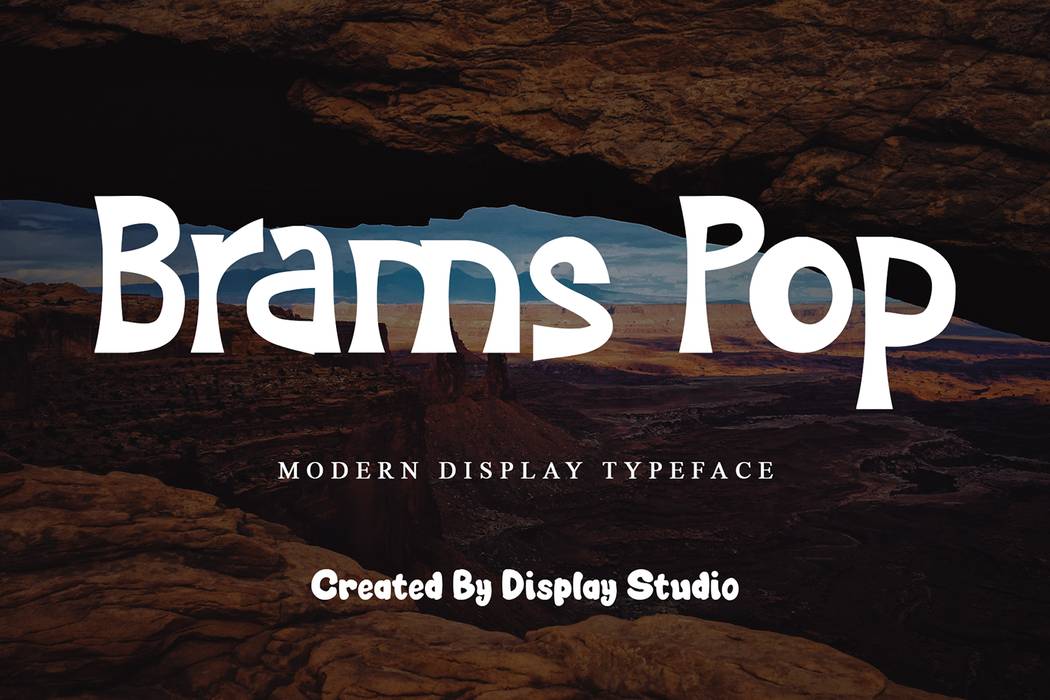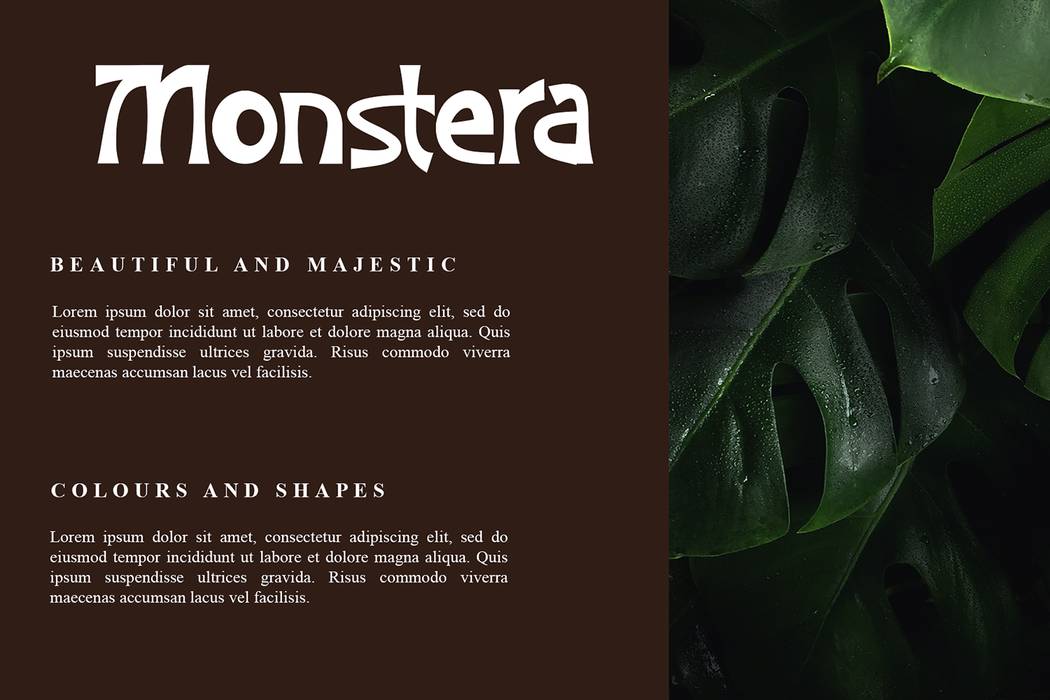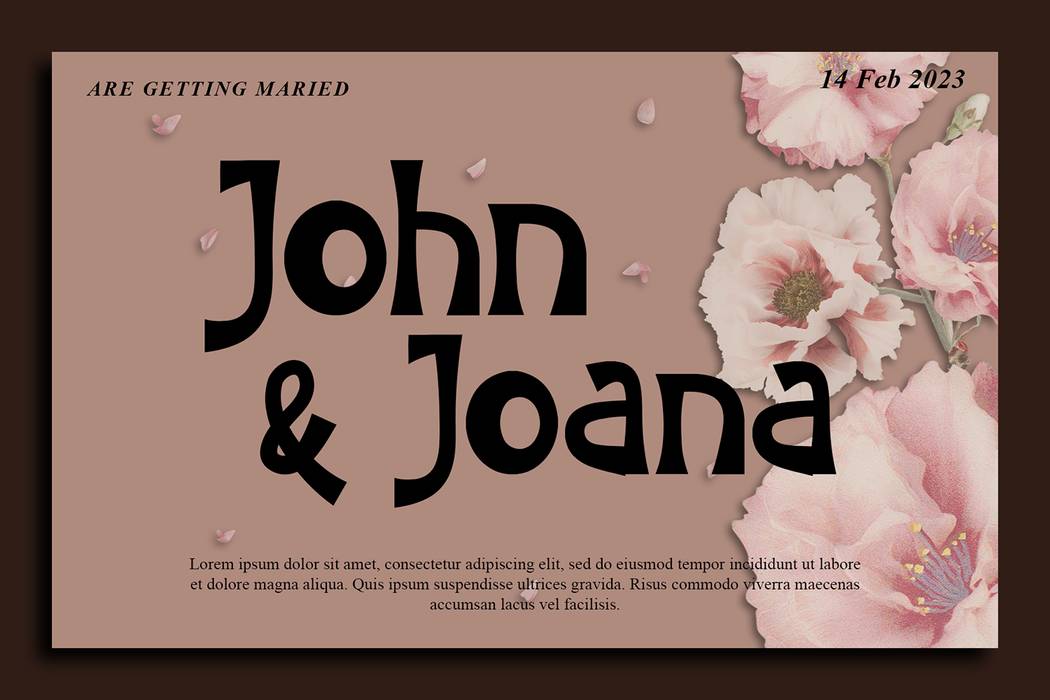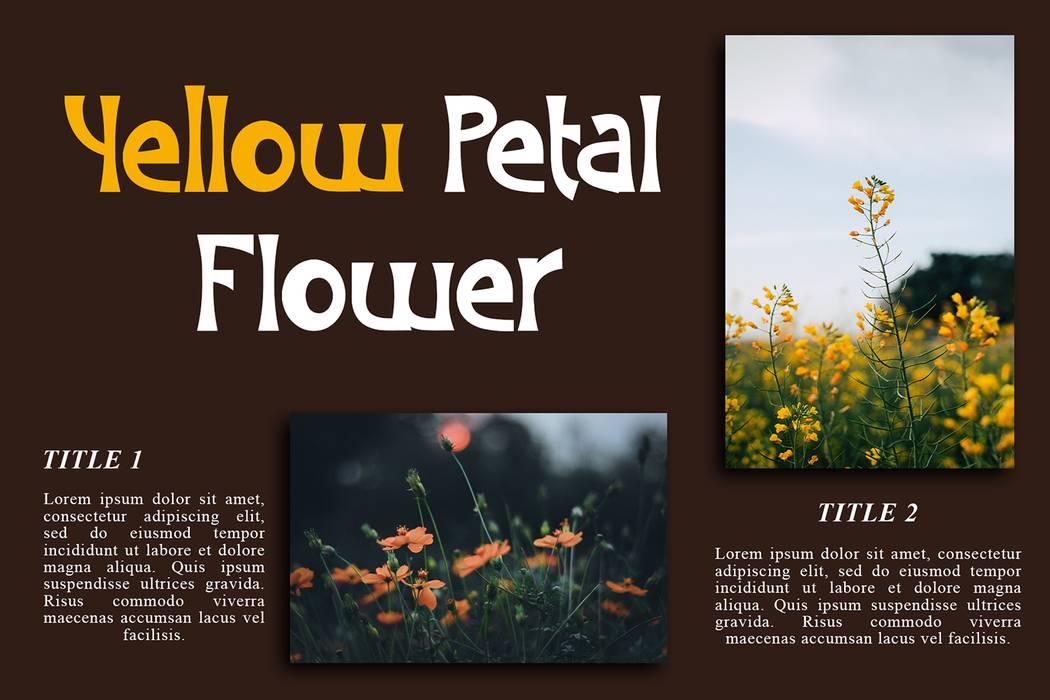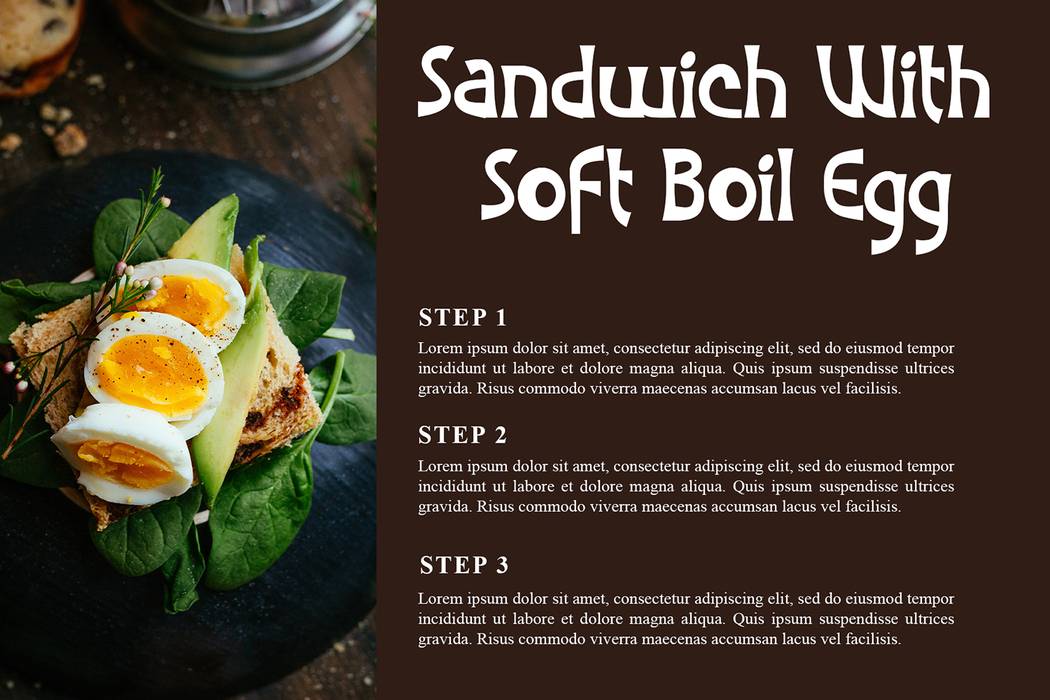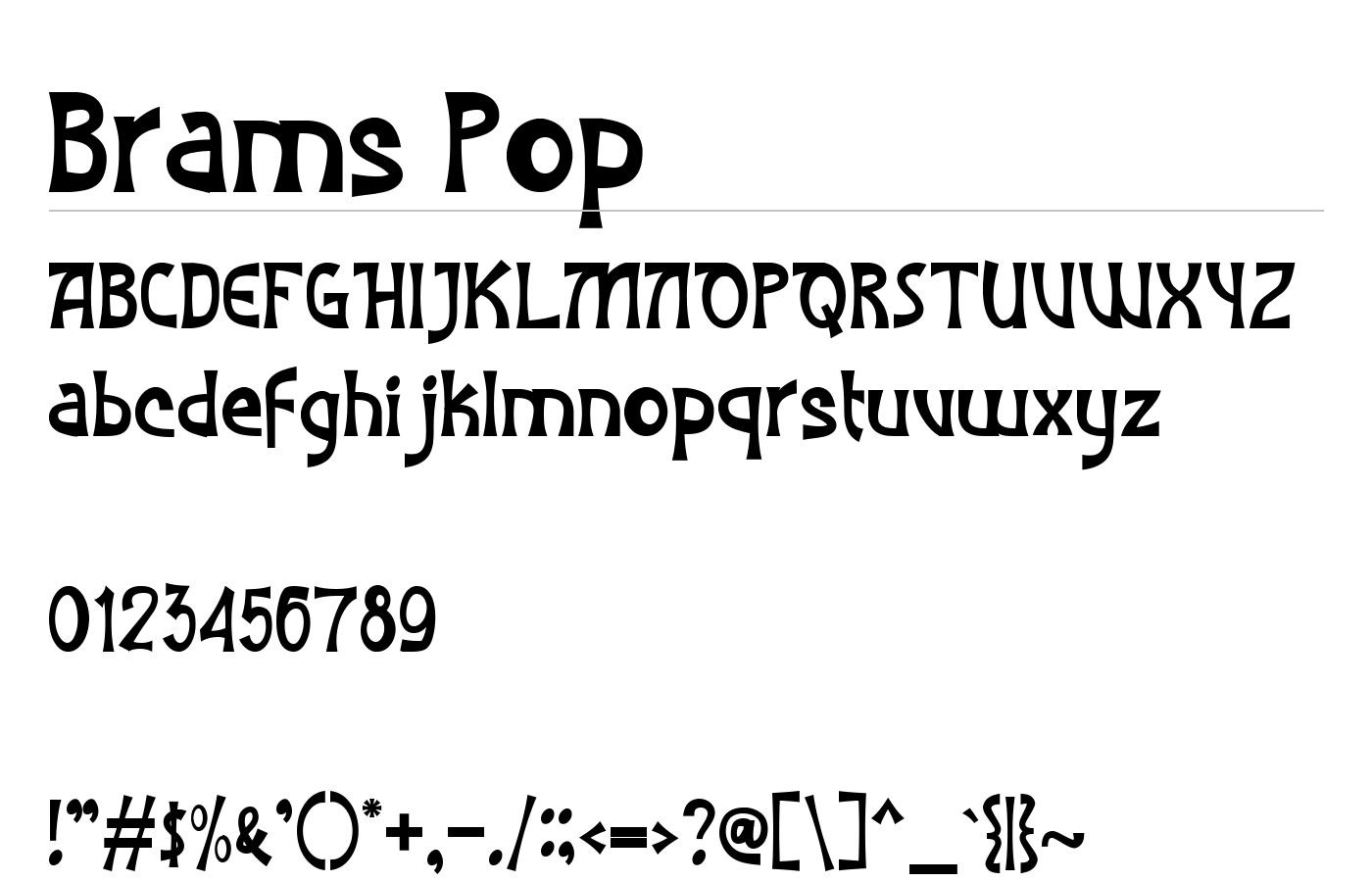
Brams Pop is a playful and quirky sans serif font with irregular, slightly condensed letterforms that create a lively and energetic vibe. Its bold strokes and distinctive shapes give it a fun personality, making it ideal for creative, informal design projects like children’s books, posters, and eye-catching logos. This font works best where a casual, whimsical tone is desired, adding character and charm while remaining highly readable.
Brams Pop Font
About Brams Pop Font